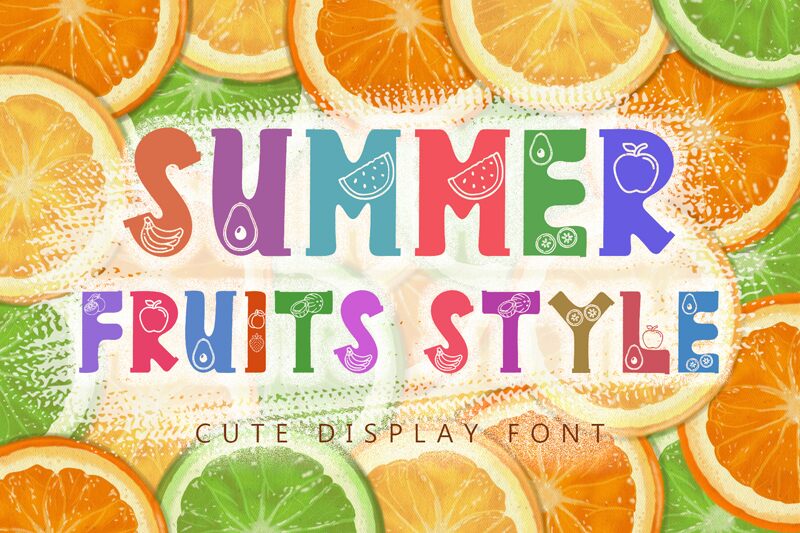
Summer Fruits Style font by Yoga Letter is a free decorative font bursting with vibrant energy and color. Its design evokes the whimsical and lively spirit of summer, making it an ideal choice for projects seeking a cheerful, dynamic touch. The font is visually engaging, crafted to grab attention and convey an informal yet lively tone suitable for various creative endeavors.
Use Summer Fruits Style in event posters, social media graphics, children’s book titles, greeting cards, product packaging, summer festival banners, blogs, art projects, album covers, and apparel designs for an eye-catching finish. The font’s playful aesthetic suits broad audiences and diverse applications.